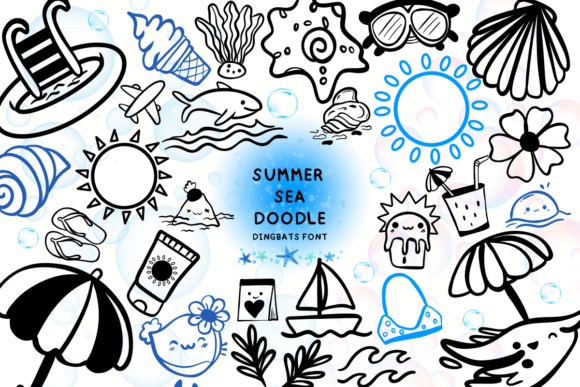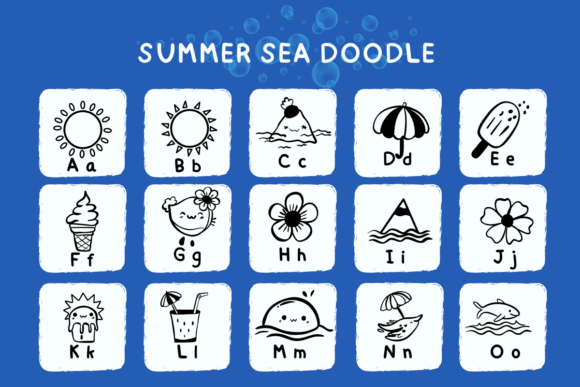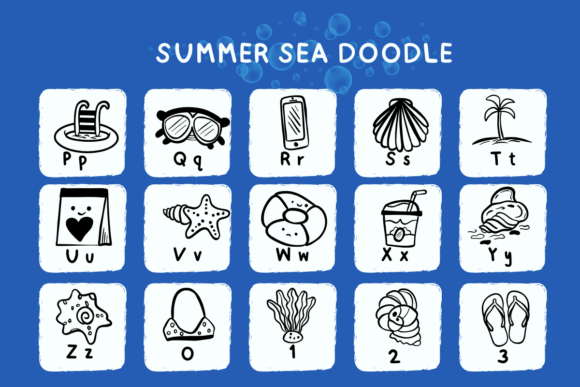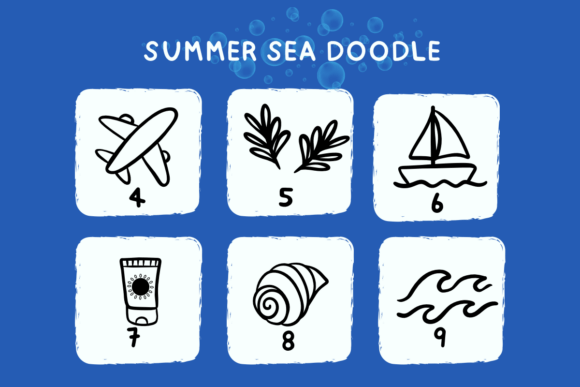
Summer Sea Doodle Font
About the Summer Sea Doodle Font
Let us introduce you to Summer Sea Doodle Font, where timeless design meets modern craftsmanship. Unleash your creativity with Summer Sea Doodle, an artistic dingbats font designed to inspire. Perfect for infusing a playful touch to your scribbled notes or giving an imaginative flare to your greeting cards, Summer Sea Doodle goes beyond the ordinary. With its versatility, it can also add a unique charm to a wide range of designs from eye-catching banners and compelling content to stylish mugs, bespoke cards, trendy shirts and elegant stationery. Even your social media posts can get a dash of artistic whimsy using Summer Sea Doodle Elevate your design game with this whimsical font.